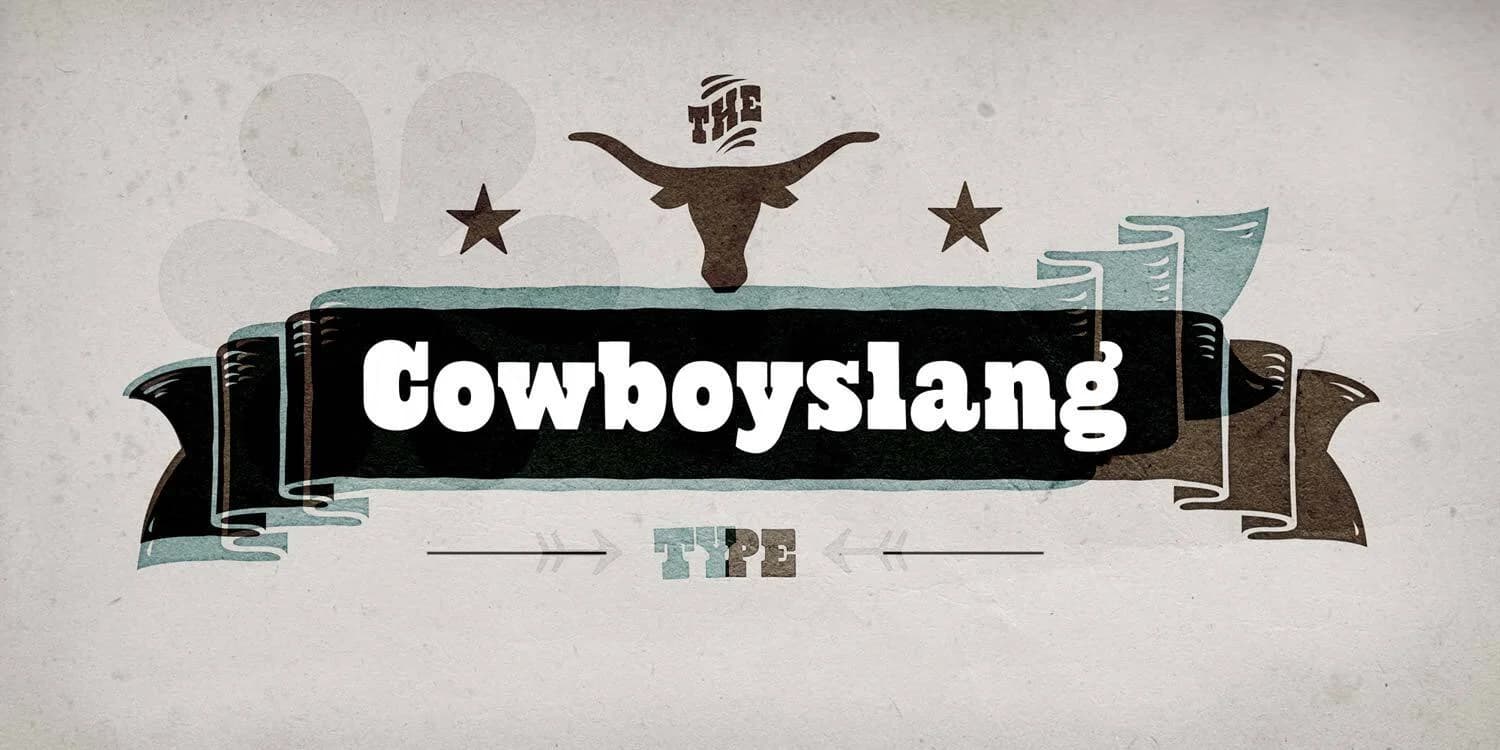
Cowboyslang
A display serif from HvD Fonts with a name suggesting Western or vernacular American typographic roots.
Named after colloquial cowboy speech, this display typeface from HvD Fonts points toward a vernacular American aesthetic suited to headline and editorial contexts. Beyond its evocative name, no specimen data was available at time of retrieval due to site access restrictions. Further detail on weights, italics and language support remains unconfirmed.
The name and foundry context suggest a display-oriented serif with a vernacular or Western flavour, though no detailed specimen data was retrievable due to a site block.